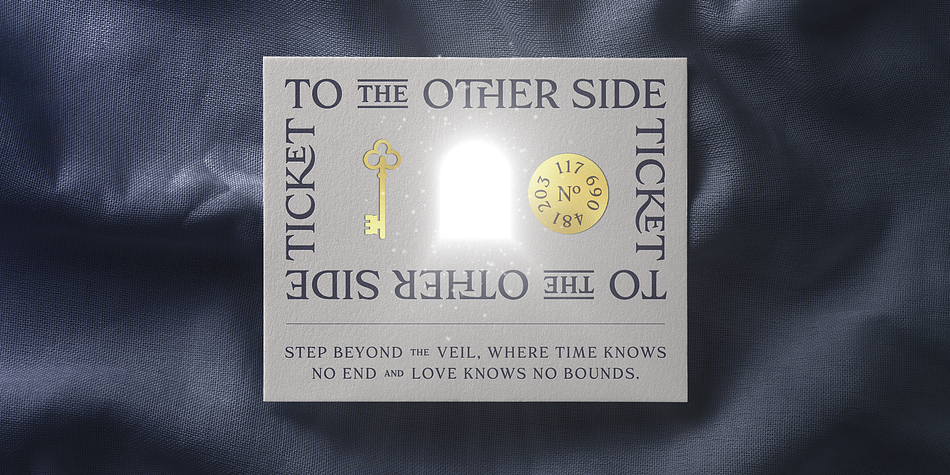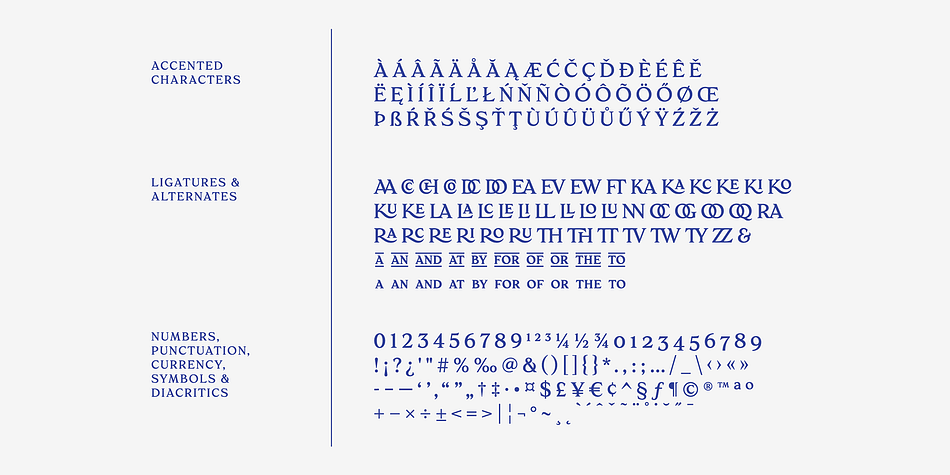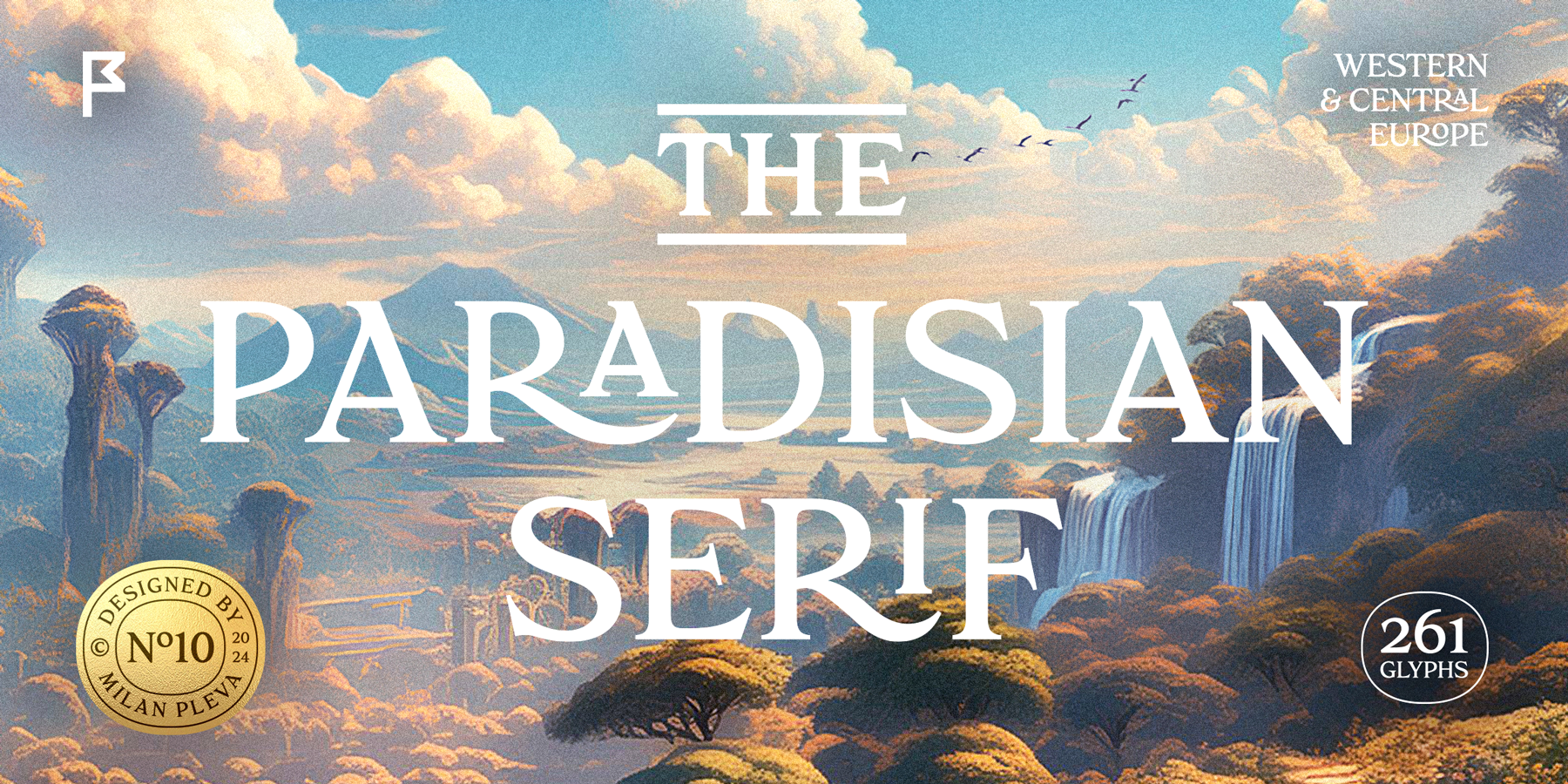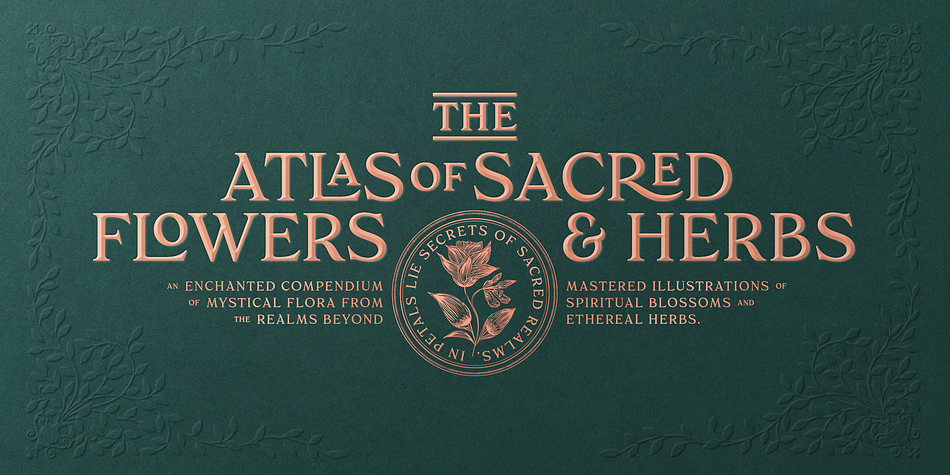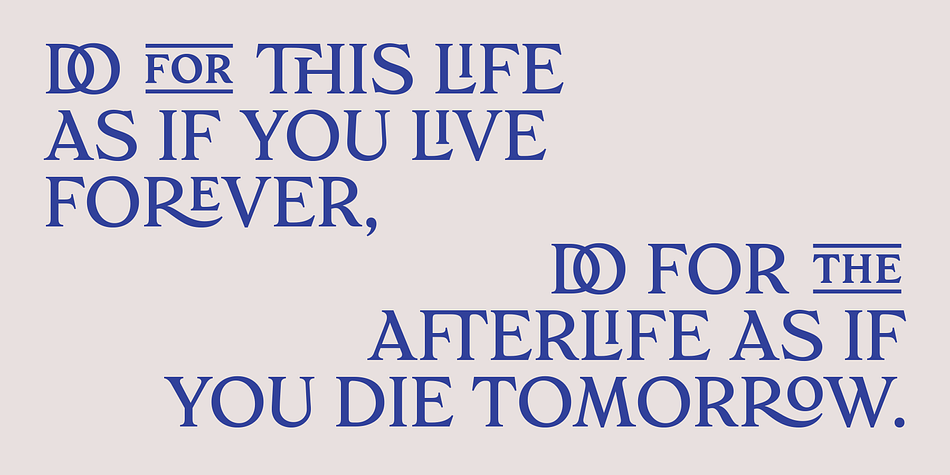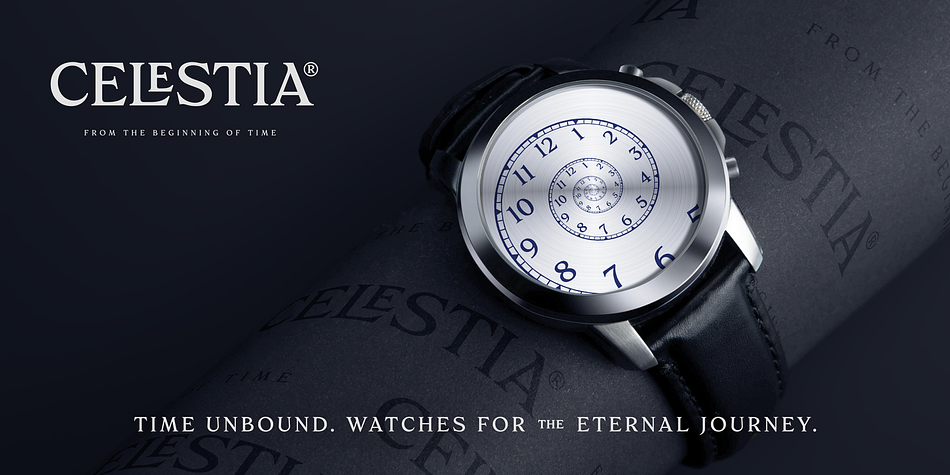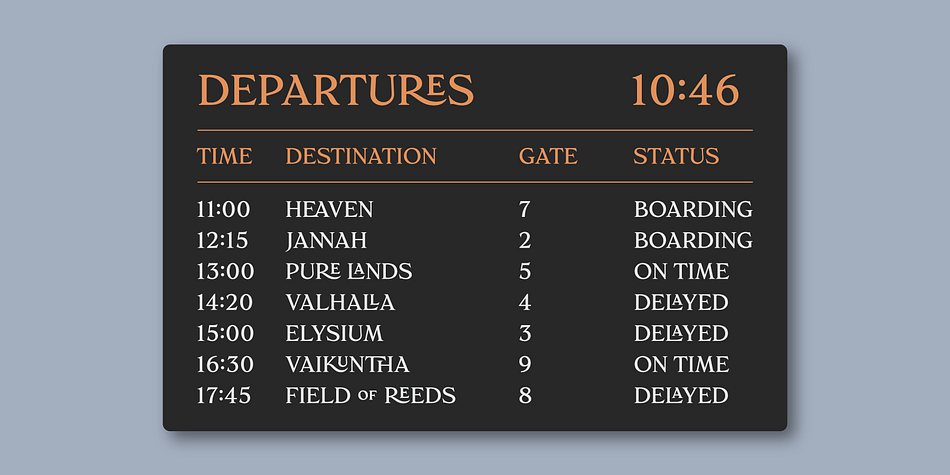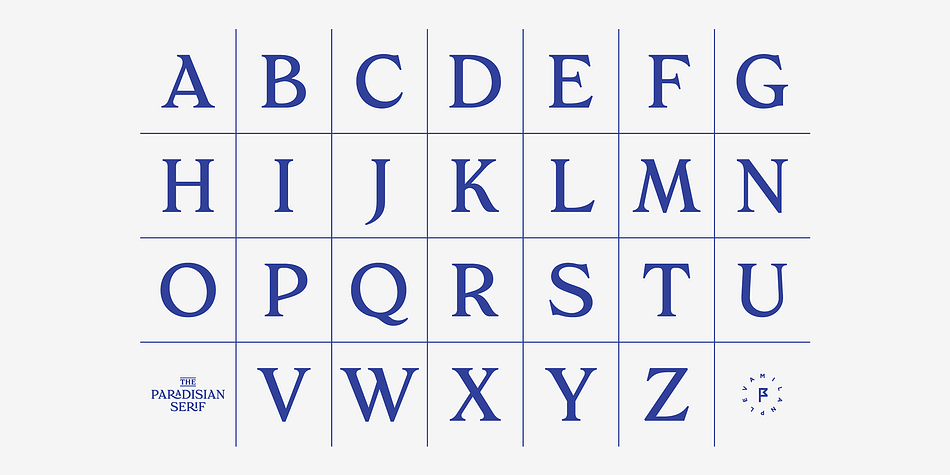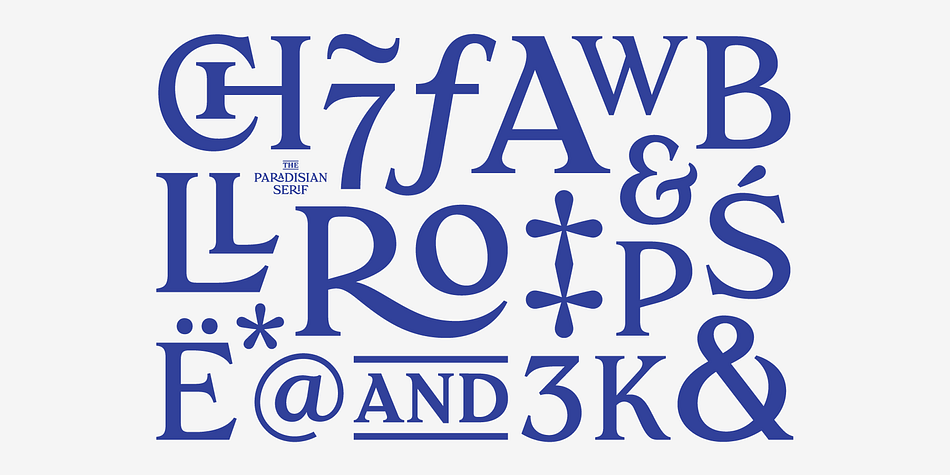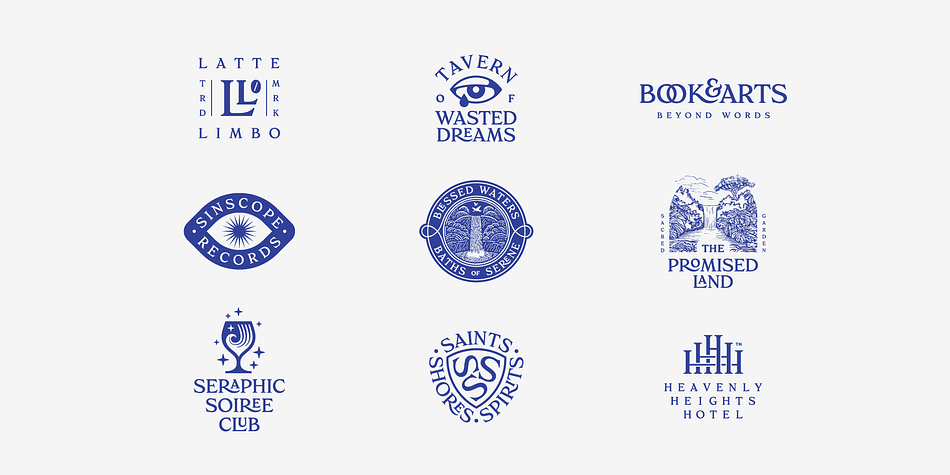
PARADISIAN SERIF
Paradisian Serif is a serif font family published by Milan Pleva.
Paradisian Serif is an all-caps display font with elegant and well-balanced curves, perfect for logos, headlines, magazines, or even longer texts. It includes selected ligatures for an enhanced aesthetic appeal. This typeface combines timeless sophistication with contemporary design, making it ideal for a wide range of creative projects. Elevate your typography with the grace and beauty of Paradisian Serif.
FEATURES
Basic latin alphabet A-Z
67 Ligatures & Alternates
56 Accented characters
Numbers, Punctuation, Currency, Symbols, Math symbols & Diacritics
Old style figures
Latin 1 + Latin 2
Western Europe and Americas: Afrikaans, Basque, Catalan, Danish, Dutch, English, Faroese, Finnish, French, Galician, German, Icelandic, Irish, Italian, Norwegian, Portuguese, Spanish and Swedish.
Latin-written Slavic and Central European languages: Czech, German, Hungarian, Polish, Romanian, Croatian, Slovak, Slovene.